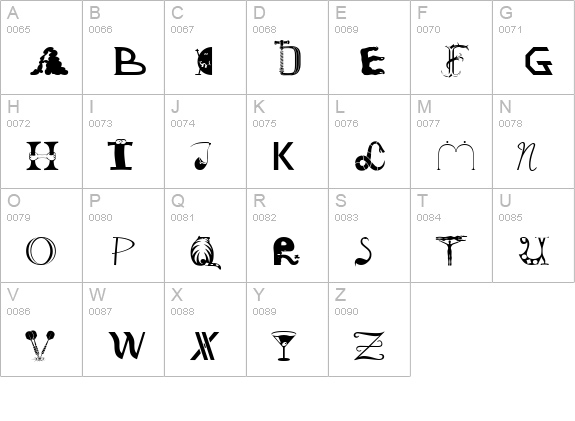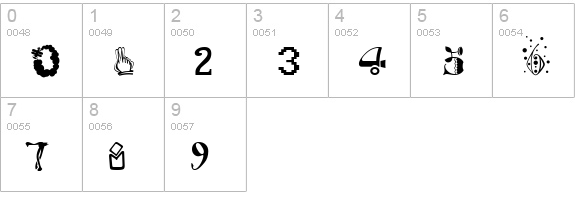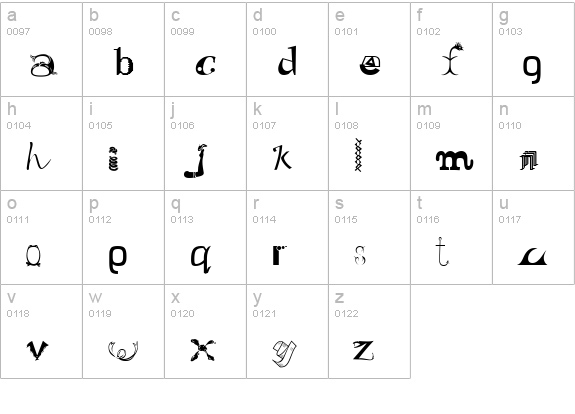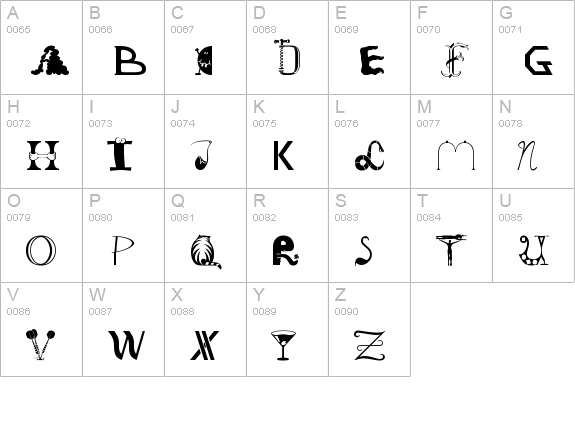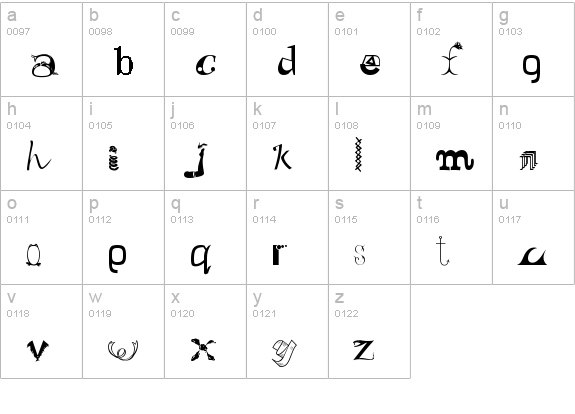
Sylvester Font Details
Introducing Sylvester Font, a stunning and versatile typeface that exudes elegance and sophistication. With its sleek lines and modern design, Sylvester Font is perfect for a wide range of projects, from branding to social media graphics. This font features a unique blend of classic and contemporary elements, making it ideal for both print and digital applications. What makes Sylvester Font even more appealing is that it is available for free download at FontsMarket.com. This means you can add this beautiful font to your collection without any cost, allowing you to elevate your designs without breaking the bank. With Sylvester Font, you can effortlessly create eye-catching visuals that stand out from the crowd. Don't miss out on the opportunity to enhance your projects with the timeless elegance of Sylvester Font. Download it for free today at FontsMarket.com and start creating stunning designs that leave a lasting impression.